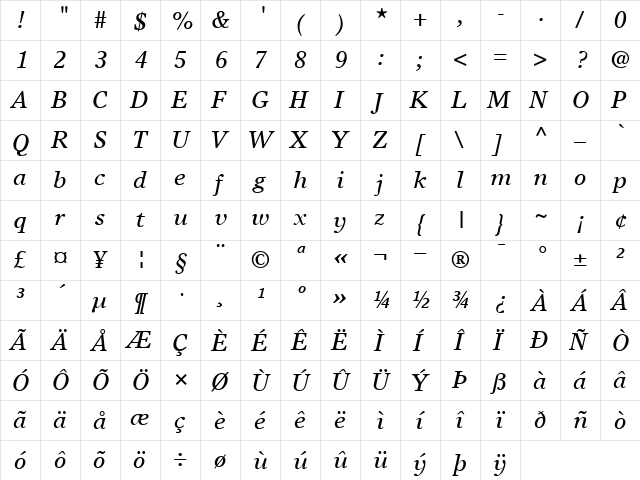
TimesEuropa RomanItalic
TimesEuropa takes a measured approach to typography — its balanced proportions and neutral character make it a reliable workhorse for both digital and print work. The dynamic lean of this cut emphasises speed and emphasis in any layout.
Pro Tip: Try TimesEuropa for annotation and caption copy alongside an upright companion — the contrast in angle creates a dynamic but ordered typographic system.